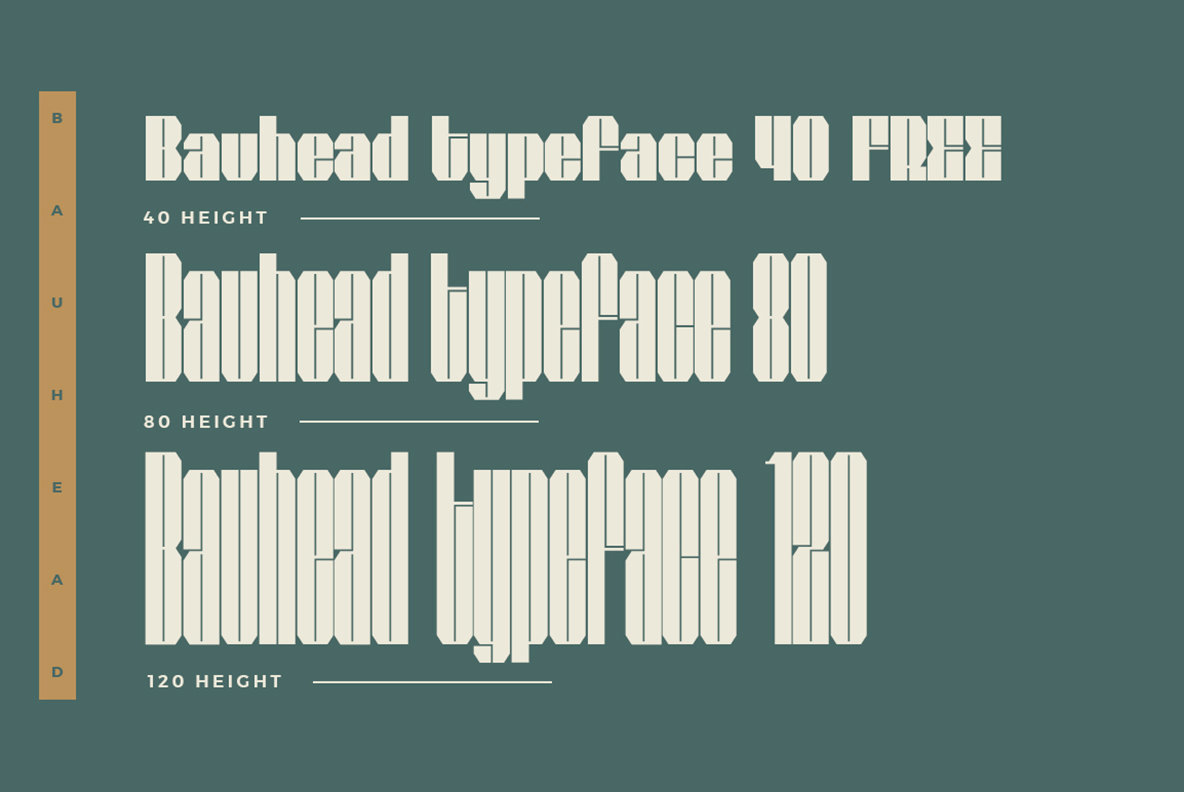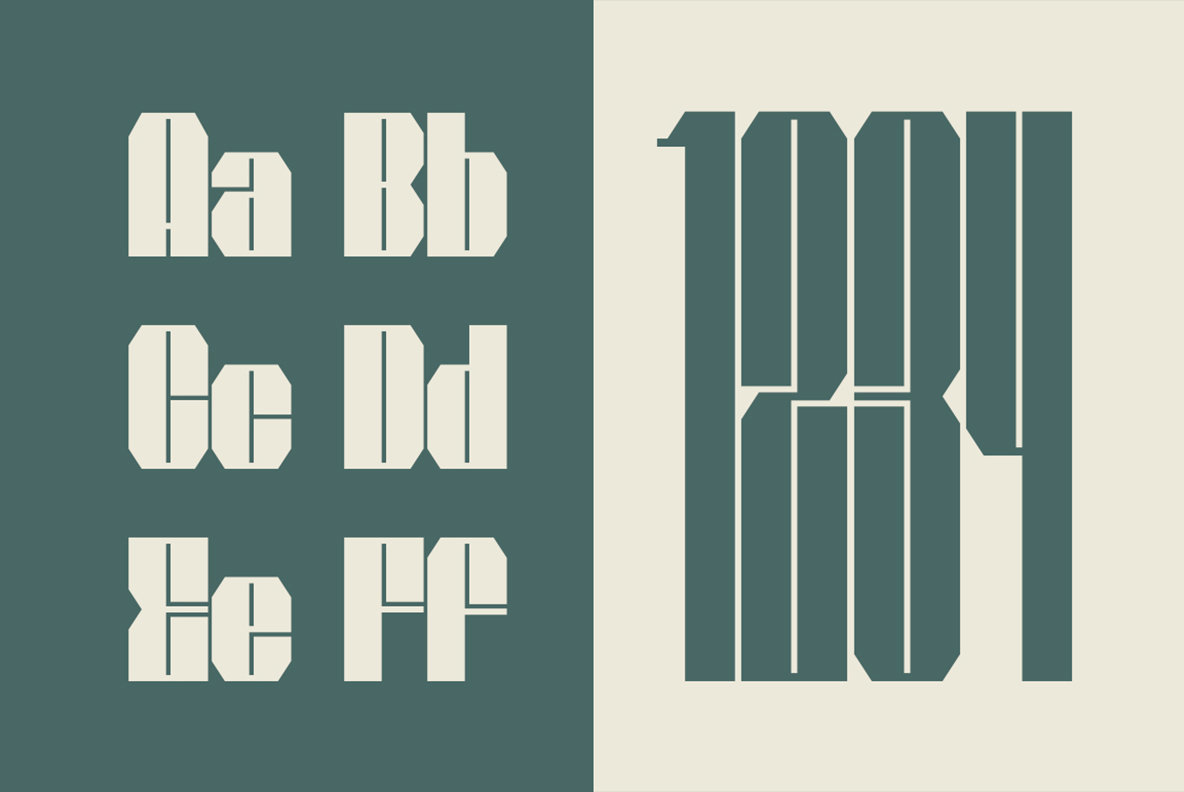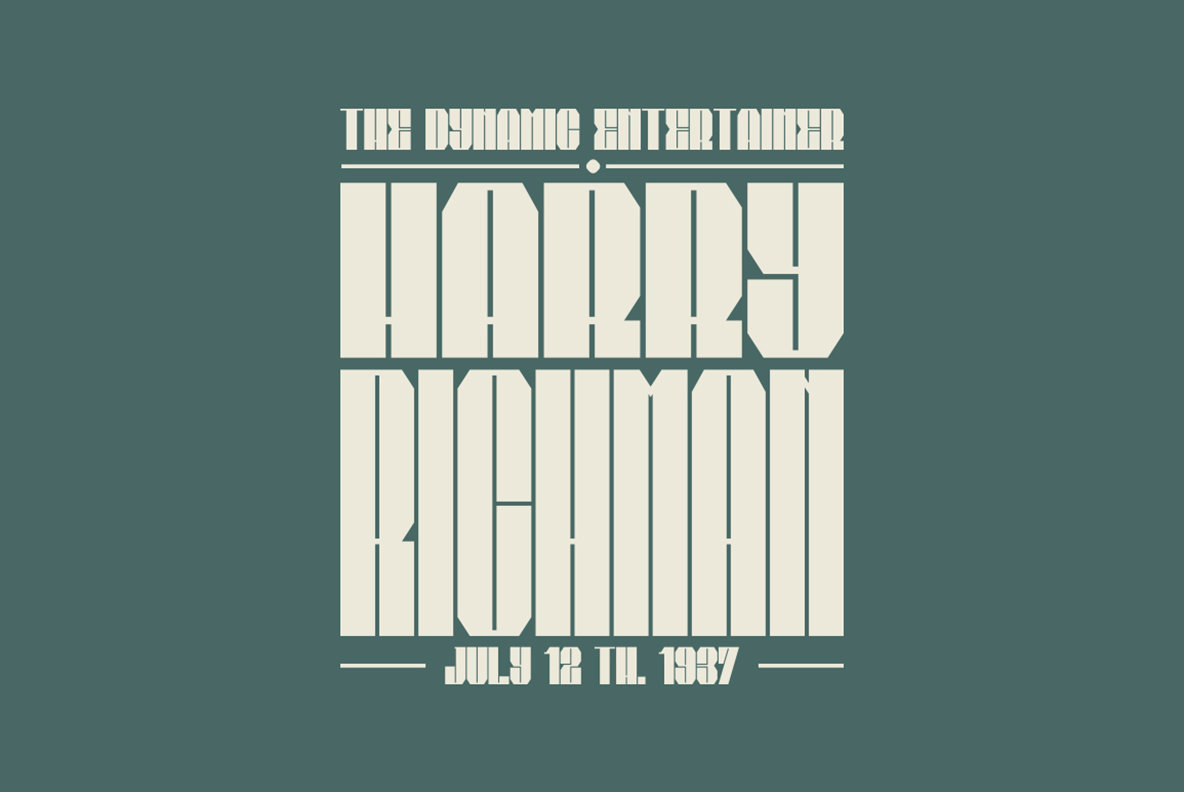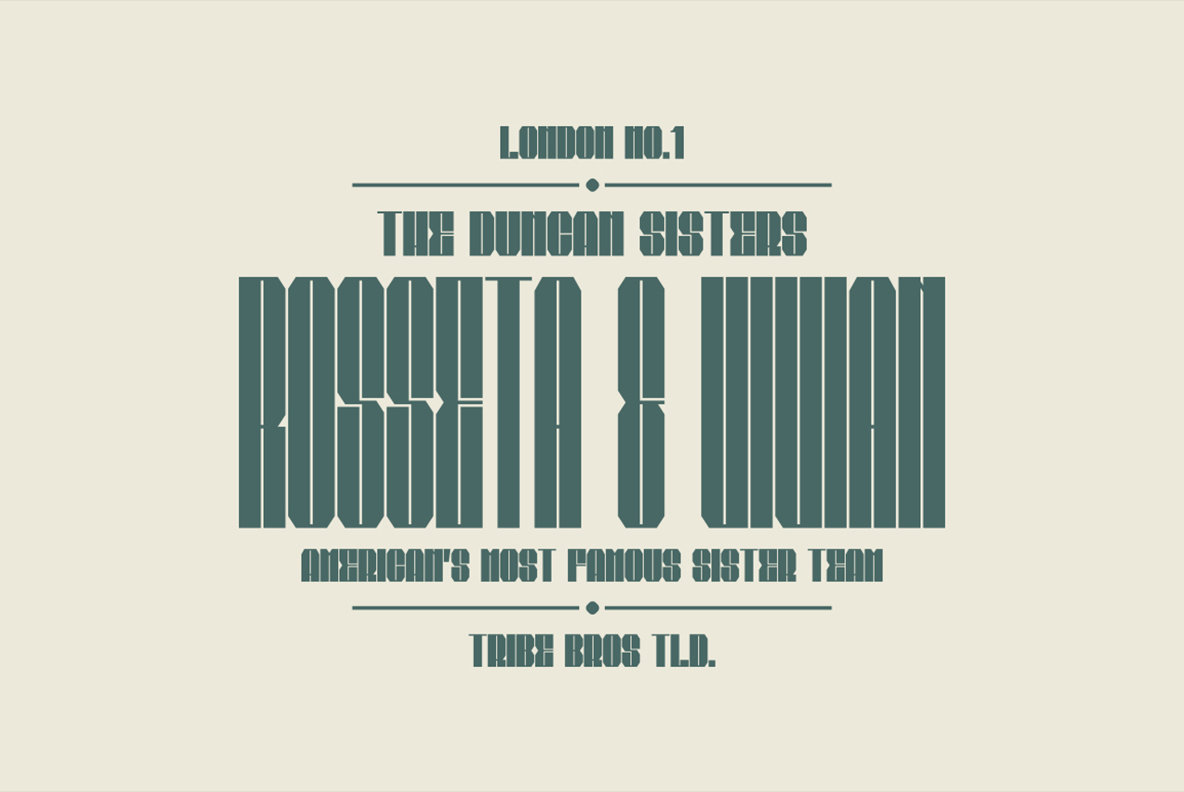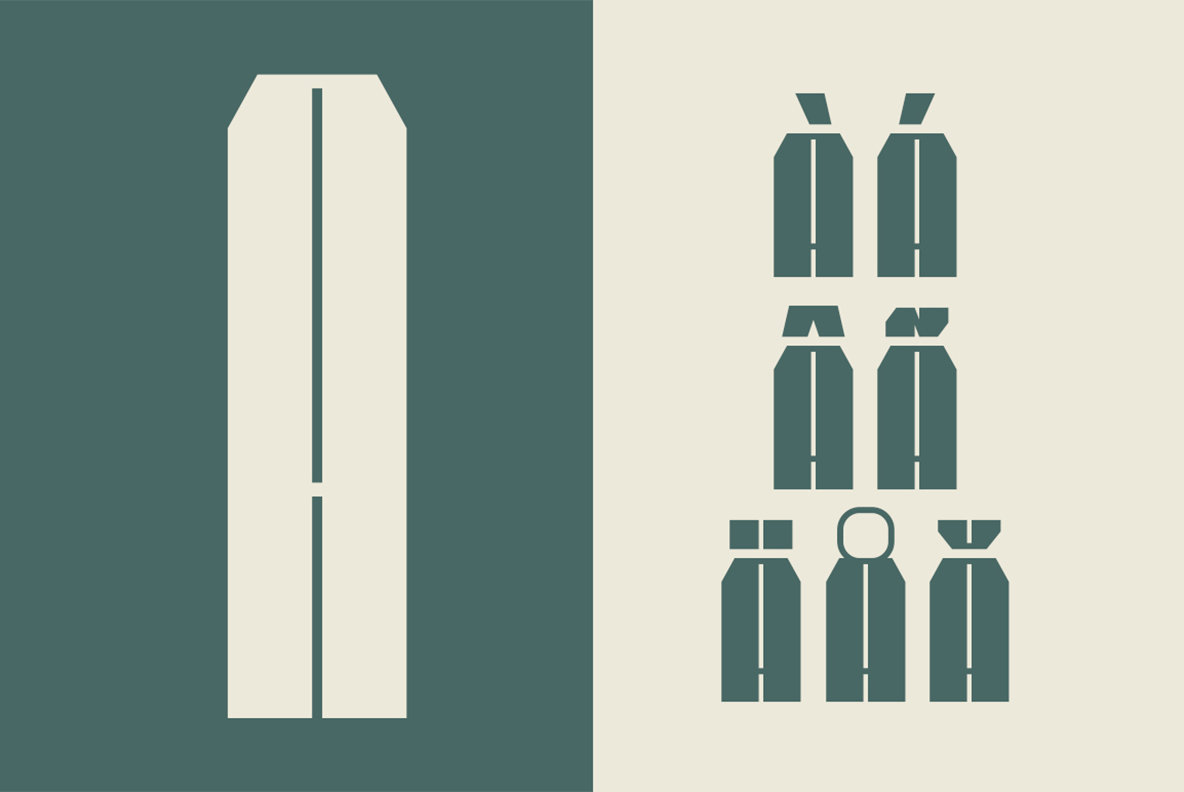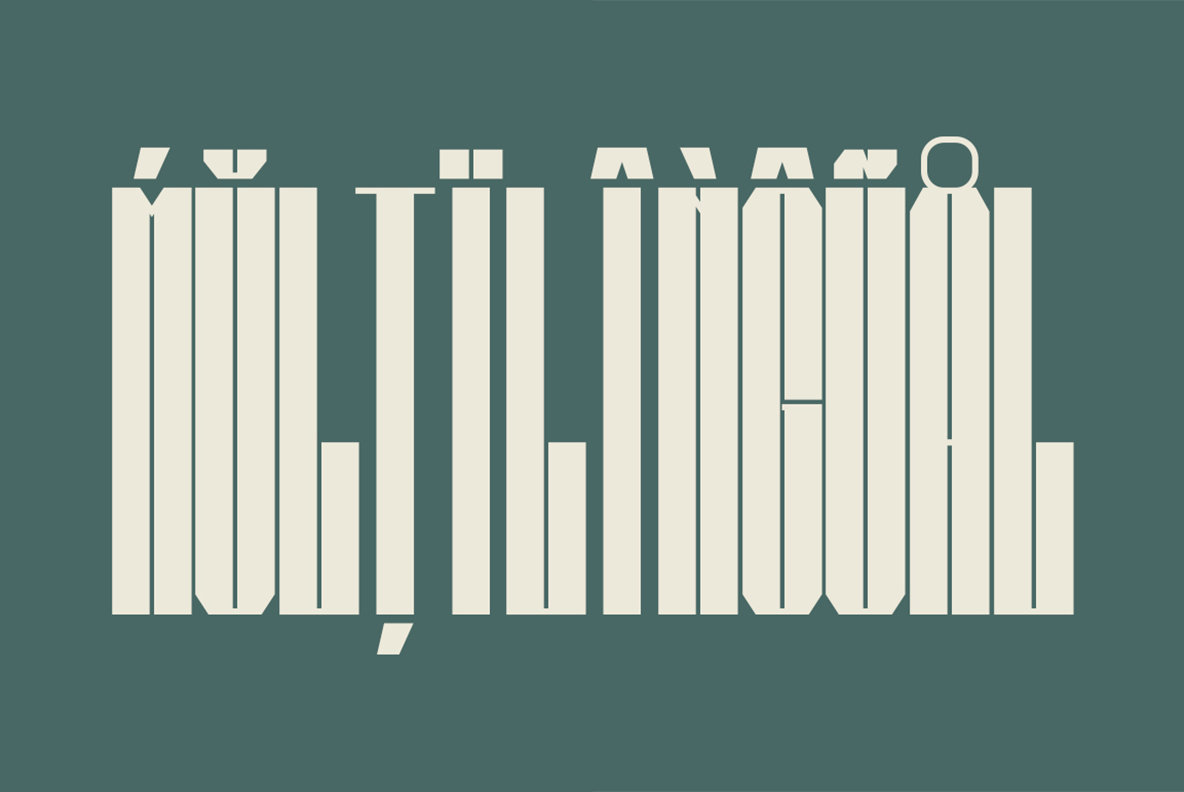
Bauhead Font
Bauhead presents a streamlined sans serif typeface that blends modernity with simplicity. With its clean design, Bauhead is ideal for crafting contemporary logos, headers, and brief text passages. It features 252 glyphs, offering support for multiple foreign languages, and includes both uppercase and lowercase alphabets, along with numbers and symbols.Bauhead: A Minimalist Font Family